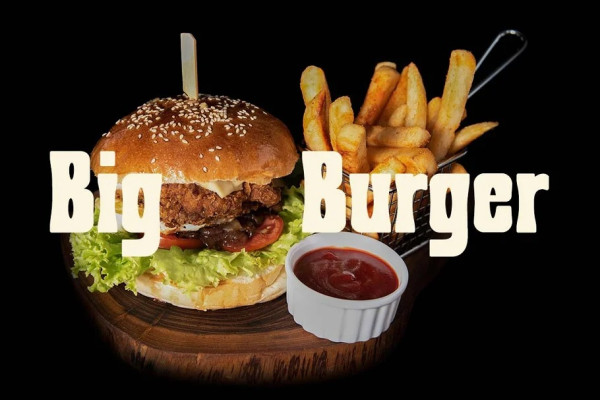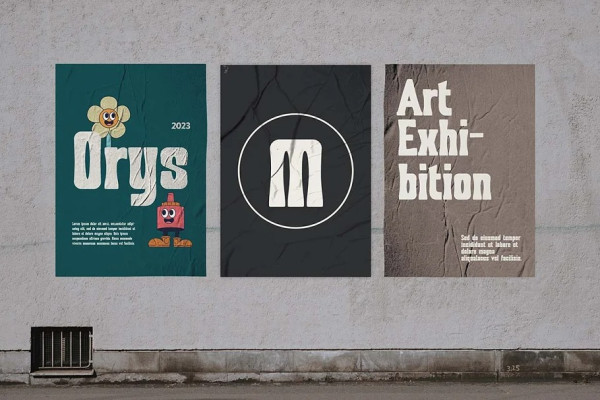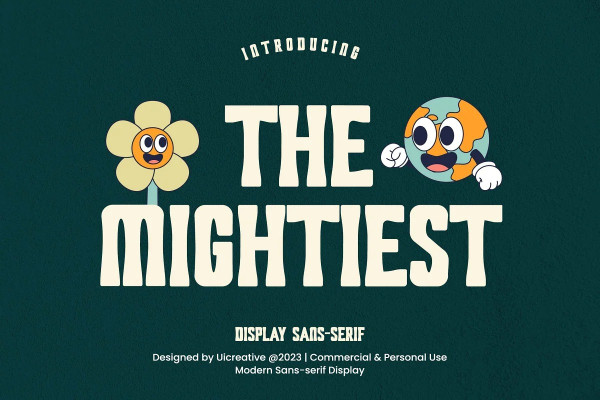
The Mightiest Font
The Mightiest Font – Display Sans Serif Font, that feels beautiful classy, elegant, and modern. This font is ideally suited for a wide variety of projects, such as signature, stationery, logo, wedding, typography quotes, magazine or book covers, website headers, clothing, branding, packaging design, and more. Also, fashion-related branding or editorial design displays both masculine and feminine qualities.